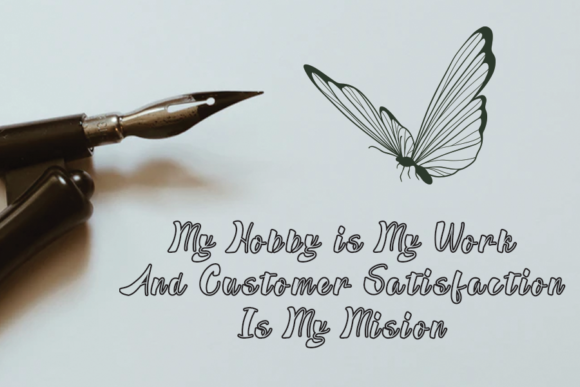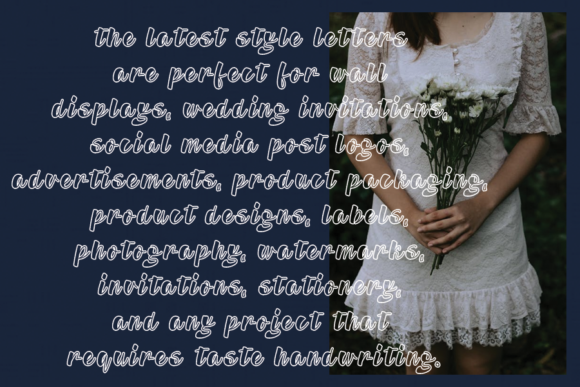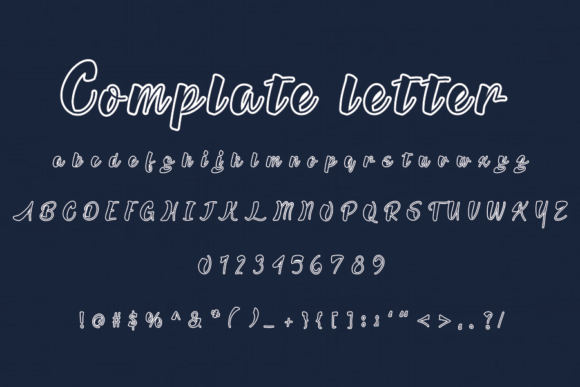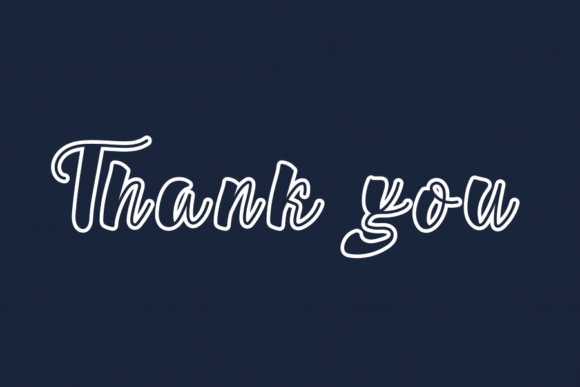
Introduction to Lolenia Font
Remember that moment when you stumbled upon the perfect font for your creative project? The moment when everything falls into place, and your design comes alive? That’s exactly what we’re here to talk about – the Lolenia Font. This stunning display font is a game-changer for designers, offering an incredibly versatile style that can elevate any project from basic to breathtaking.
Whether you’re creating beautiful wedding invitations, designing eye-catching social media posts, or working on a high-quality design resource, the Lolenia Font is an invaluable asset. With its beautiful, round lettering, this font is perfect for any creative project that requires a touch of elegance and sophistication. And the best part? You can download the Lolenia Font for free, making it an accessible design resource for designers of all levels.
Key Features of Lolenia Font
- High-quality design resource suitable for creative projects, offering a unique and stylish aesthetic.
- Features a transparent background, allowing for seamless integration into different design elements and backgrounds.
- Designed with precision and care, ensuring a high-resolution output that meets the demands of modern design projects.
- Part of a comprehensive font family, offering a range of weights and styles to suit different design needs and preferences.
Honest Review: Lolenia Font
I recently stumbled upon the Lolenia Font, and I’m excited to share my thoughts on this design resource. As a designer, I’m always on the lookout for high-quality fonts that can elevate my creative projects. The Lolenia Font definitely delivers.
- ✨ The transparent background option is a great feature, allowing for seamless integration into various design backgrounds.
- ✨ The font’s high quality is evident in its crisp and clean lines, making it perfect for a wide range of design applications.
- ⚠️ The font’s versatility is somewhat limited, making it best suited for specific design niches (e.g., fashion, beauty, etc.).
- ⚠️ The font’s character set is not as extensive as some other fonts, which may be a drawback for designers requiring a wider range of characters.
Tips for Getting the Most Out of Lolenia Font
Experiment with different font sizes, colors, and styles to add visual interest to your design. Use the font in conjunction with other design elements to create a cohesive and creative project.
Lolenia Font is particularly well-suited for use in creative projects such as logos, branding, and marketing materials. Its high quality and transparent background make it ideal for use in designs where clarity and readability are key.